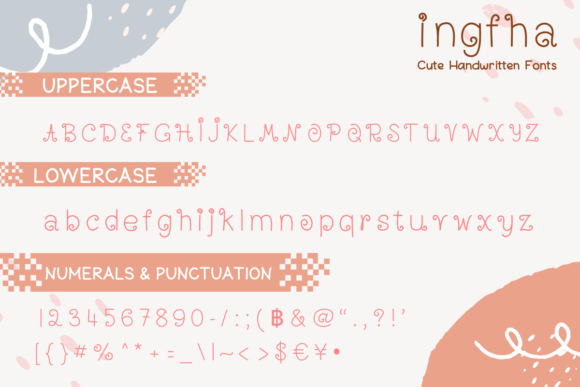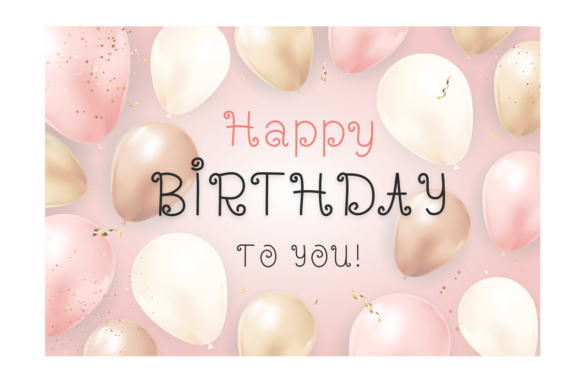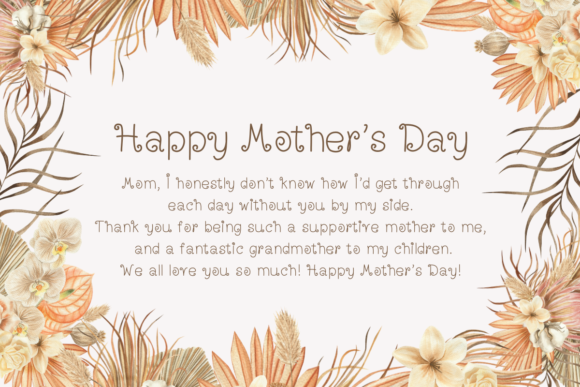
Ingfha Font
About Ingfha Font
Ingfha is a cute handwritten font featuring a spiral curled tail. You can use it to create Valentine’s Day cards, Mother’s Day cards, wedding designs, logos, banners, posters, stationary art, social media posts, and so much more!